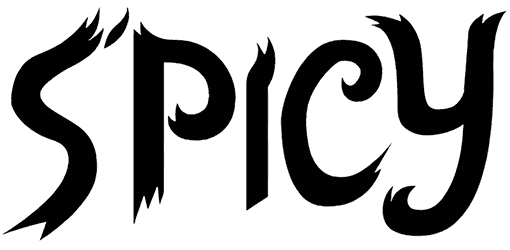
Spicy Font
If you are looking for a fantastic horror font, Spicy is an appropriate choice. This well-designed font has an energetic feeling that seems memorable to the viewers.
You may use the Spicy font for several cases, such as posters, prints on clothing, and flyers; however, it does not support lowercase letters. This fire font’s letters have a fire design that seems entertaining. So, give this font a try and impress your audience.